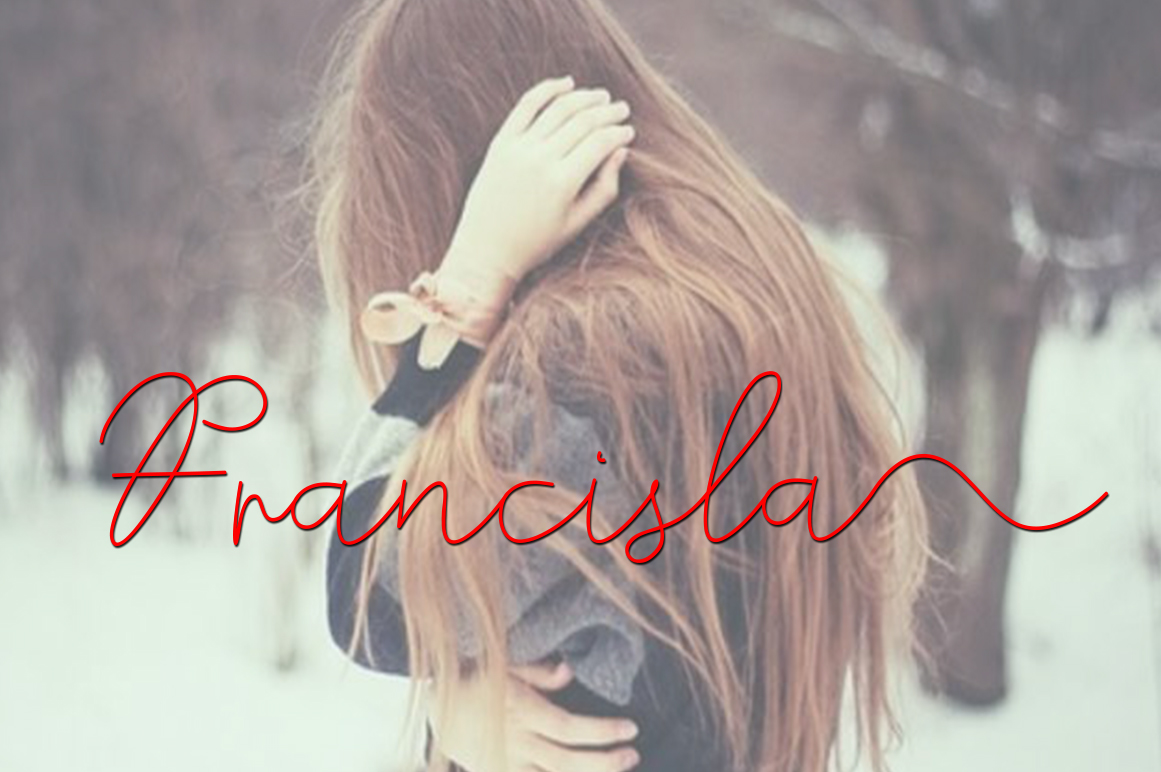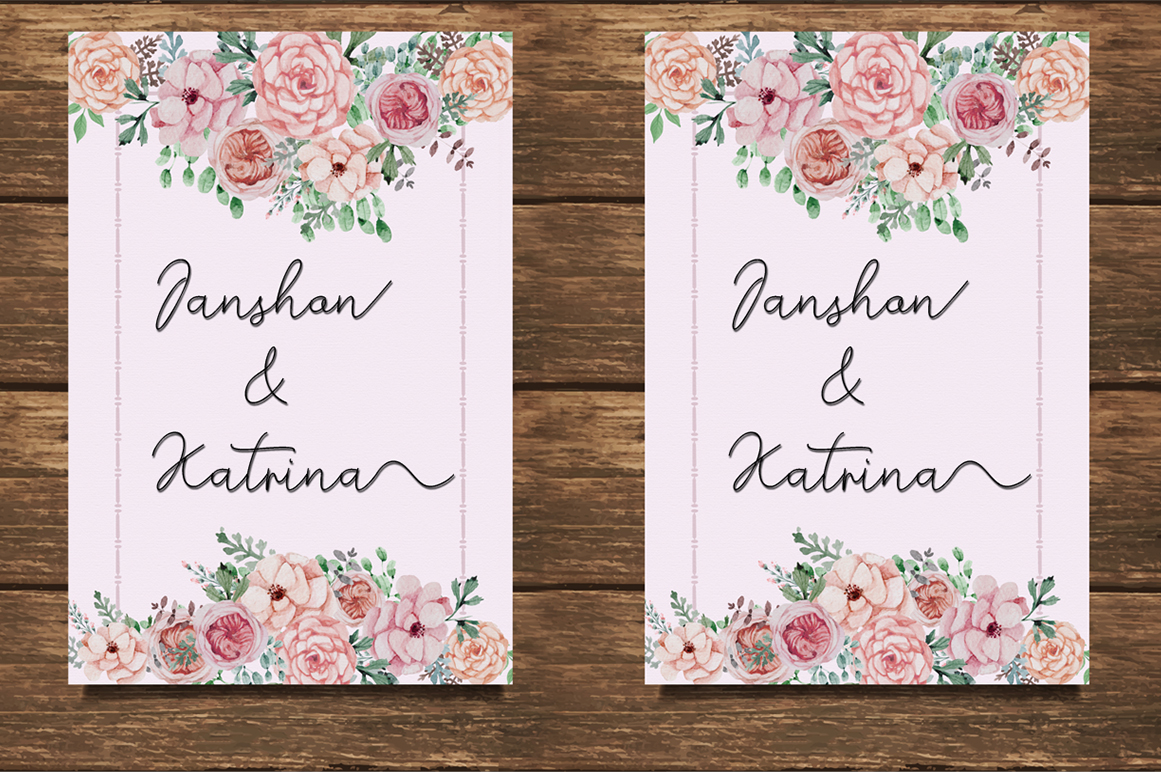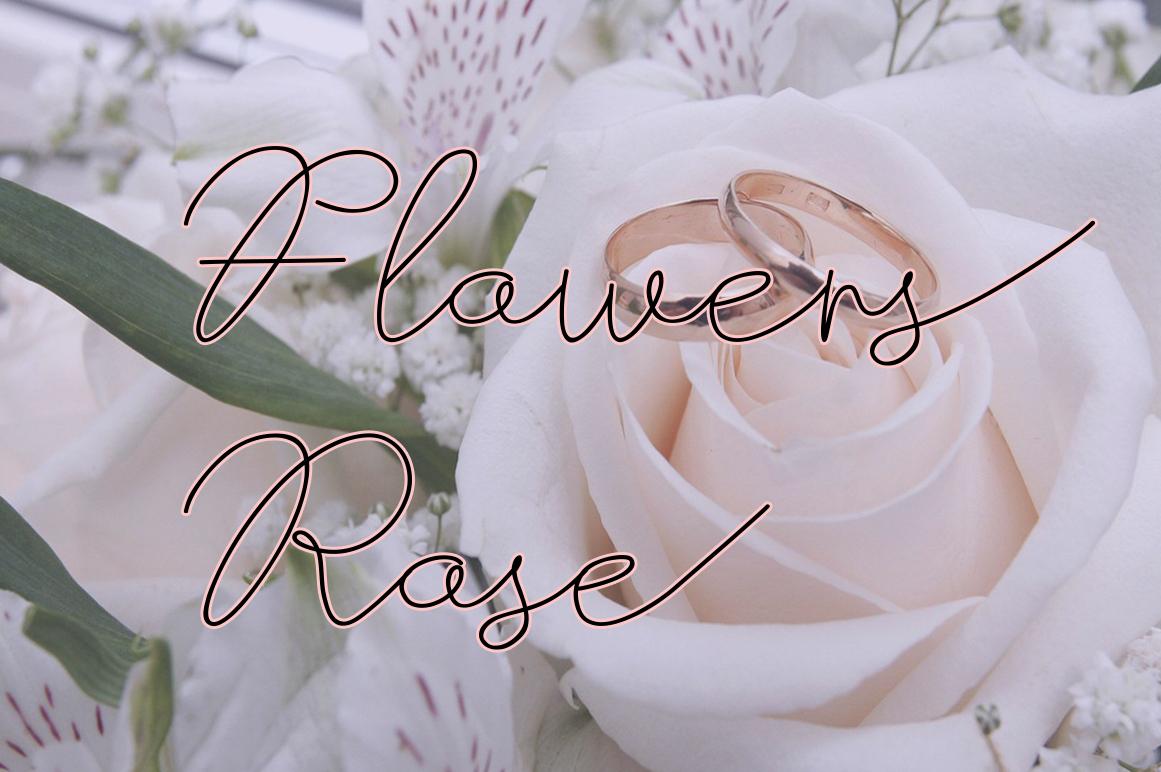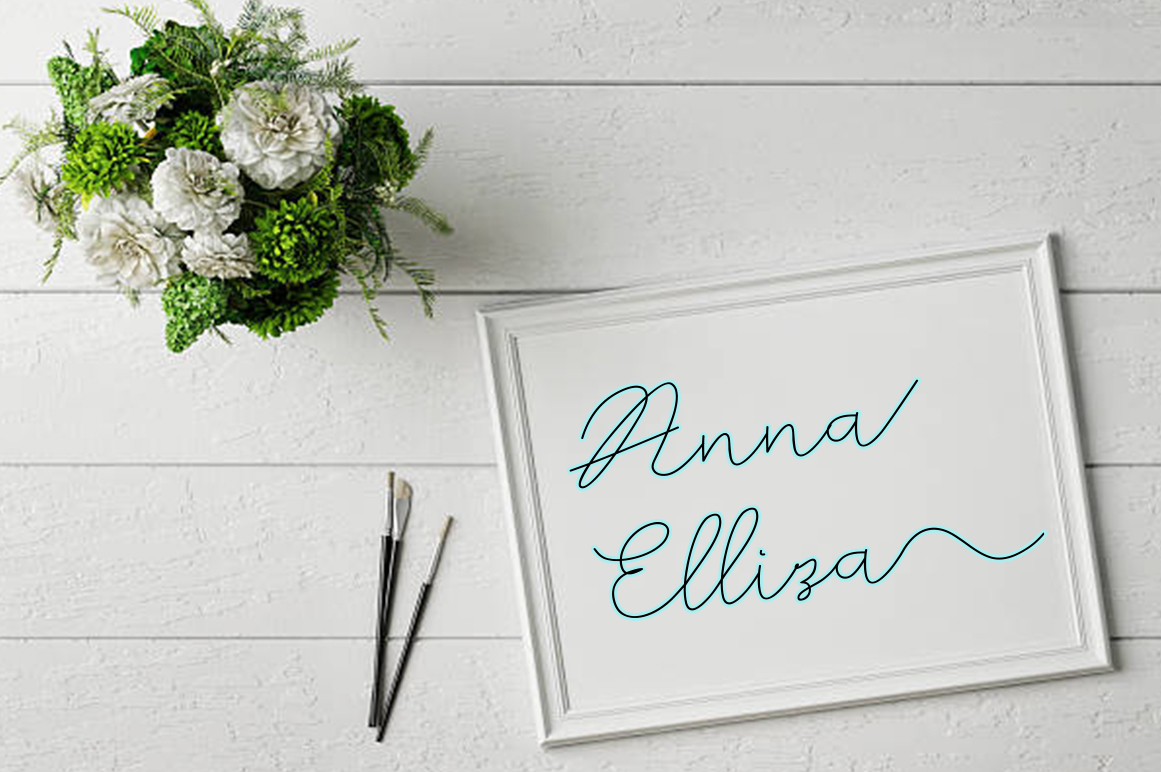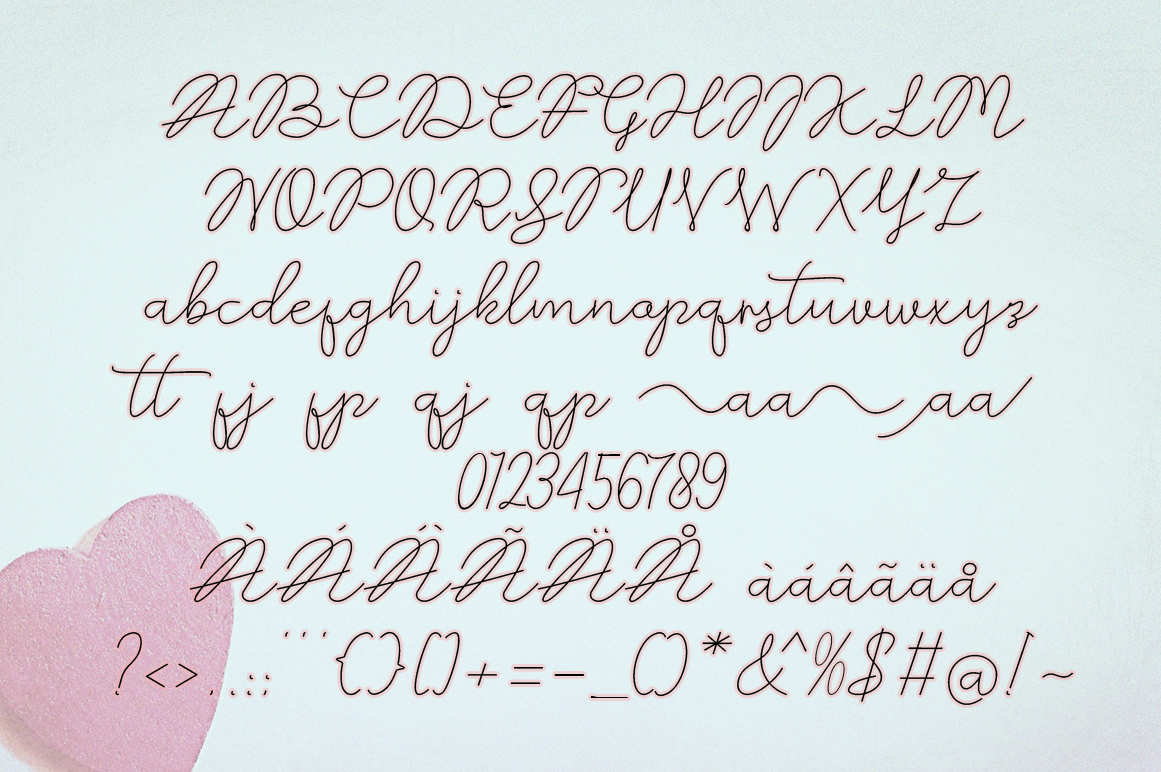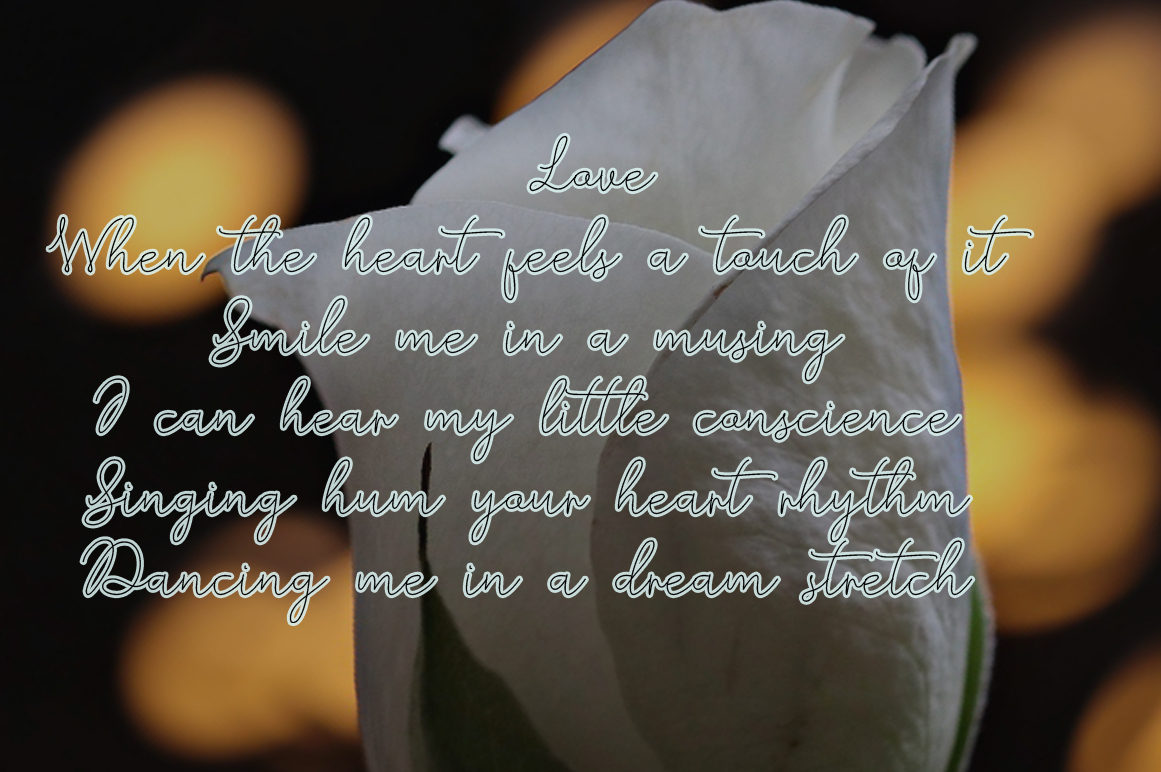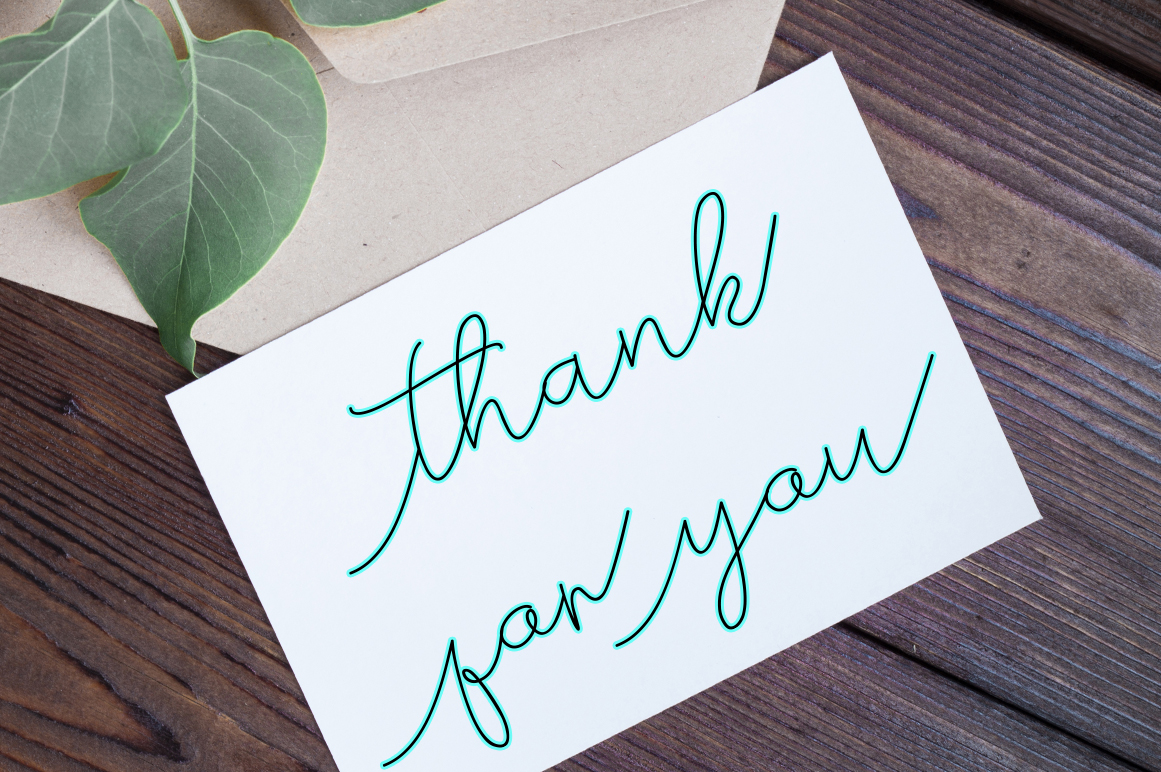
HomeScript FontsAstiola Font Script Fonts Astiola Font FacebookXPinterestWhatsApp Astiola Font Poster 2 Astiola Font Poster 3 Astiola Font Poster 4 Astiola Font Poster 5 Astiola Font Poster 6 Astiola Font Poster 7 Astiola Font Poster 8 About Astiola Font Astiola is a fresh, modern monoline script featuring a calligraphic style. DOWNLOAD NOW People also explored Anjelyne Font Meont Font Wonderbear PB Murisa Betzmann Font Byakta Font Frogen Font Premium Font Wild Life Font Australian Font 306 0 TagsAstiola Font Previous articleBritney Signature FontNext articleJasmine Font LEAVE A REPLY Cancel reply Comment: Please enter your comment! Name:* Please enter your name here Email:* You have entered an incorrect email address! Please enter your email address here Website: Save my name, email, and website in this browser for the next time I comment. Personal Use Free Vincent Familiante Personal Use Free Read more about this font Hubbies Personal Use Free Read more about this font Colourbars Personal Use Free Read more about this font Sheiloria Personal Use Free Read more about this font BLOG Exploring Font Trends Shaping Communication in the Digital Era Fonts, like all design elements, are subject to trends. They play a crucial role in communicating a brand's personality,... Top 7 Google Fonts Alternatives for Faster and Privacy-Friendly Web Design (2025) Where to Buy American Fonts Online in 2024 Top 10 Handwritten Fonts That Elevate Your Designs